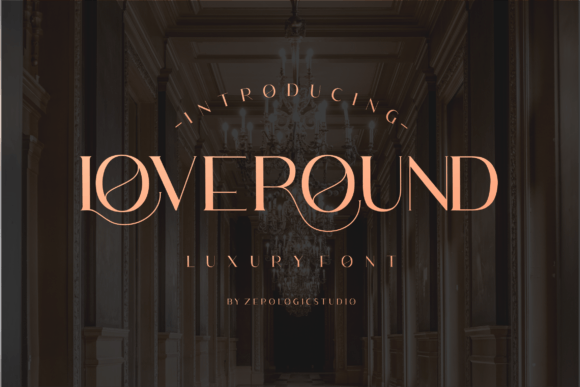
Introducing Loveround Font, a true gem in the world of typography. This stunning serif font, created by zerologicstudio, is the epitome of timeless elegance and vintage luxury. With its graceful curves and delicate details, Loveround Font exudes a sense of refinement and sophistication that is sure to captivate anyone who lays eyes on it.
Imagine creating a modern CV that stands out from the crowd. Loveround Font is the secret ingredient that will elevate your resume to new heights. Its exquisite design adds a touch of class and sophistication, making your CV instantly memorable. Recruiters won't be able to resist the allure of your beautifully crafted typography, as it speaks volumes about your attention to detail and professionalism.
But Loveround Font is not just for CVs. Its versatility knows no bounds. Whether you're designing a wedding invitation, a magazine layout, or a branding project, this font will bring a touch of magic to your creations. Its timeless appeal and vintage charm will transport your audience to a bygone era of glamour and indulgence.
Let's talk about emotions. Loveround Font evokes a sense of nostalgia, reminding us of a time when life was slower and more elegant. It brings back memories of handwritten love letters, the sound of a typewriter, and the smell of old books. This font has the power to transport your audience to a world of refined taste and sophistication, creating an emotional connection that is hard to resist.